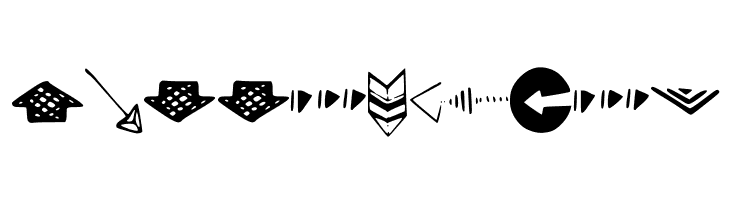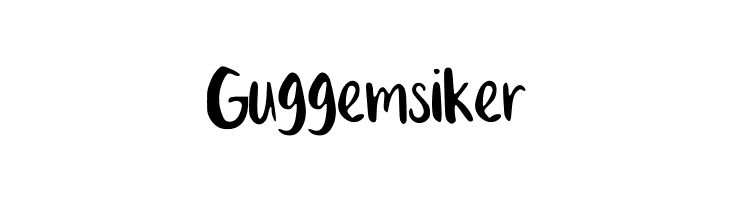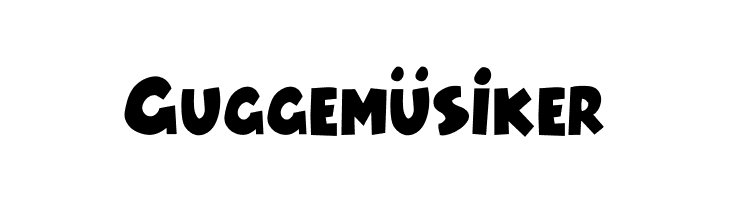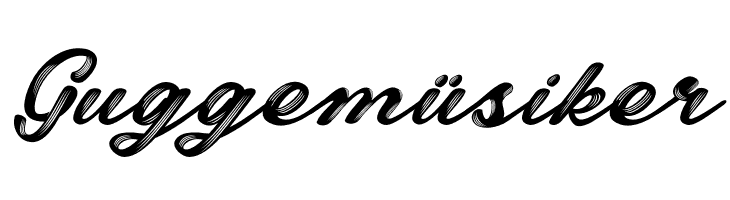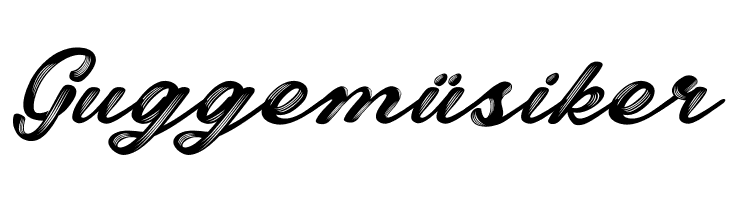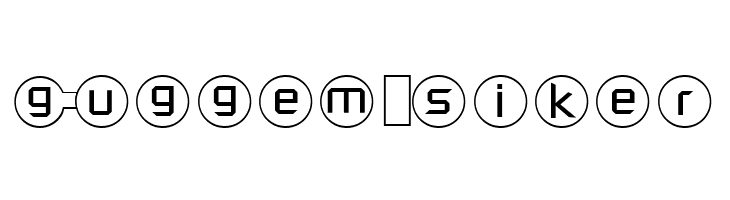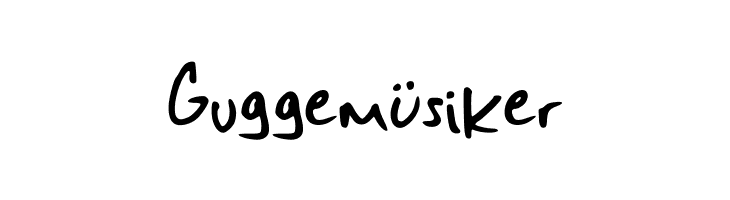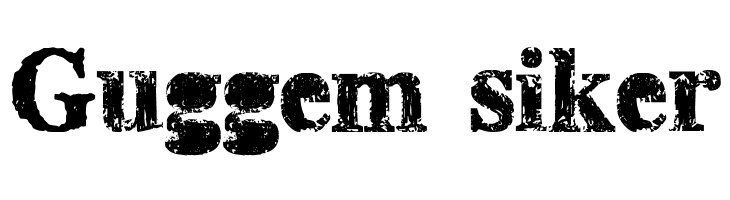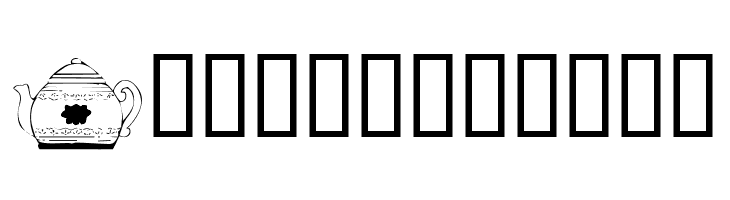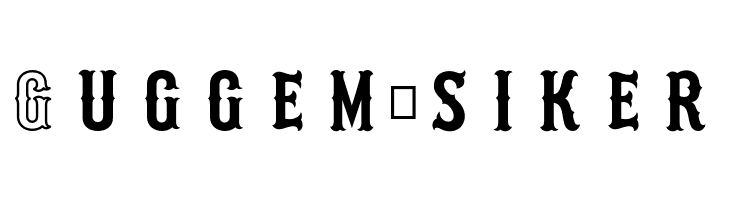
A playful handwritten font with smooth curves and a casual style.
A tall, narrow, hand-drawn font with a whimsical and playful style.
A bold, brush-style font with an energetic and artistic flair.
Hand-drawn decorative font made of assorted arrow illustrations.
Hand-drawn educational and academic-themed icon set.
A diverse set of decorative symbols and dingbats.
A playful, hand-drawn font with bold, dynamic strokes and a lively character.
A bold, expressive handwritten font with dynamic strokes and playful character.
A bold, playful font with thick, rounded strokes and a hand-drawn feel.
A playful, handwritten font with bold, rounded characters.
A bold, cursive script font with elegant, flowing letterforms.
A bold, flowing script font with elegant, cursive letterforms.
A sketch-like, artistic font with irregular strokes and a dynamic, hand-drawn feel.
A tall, narrow, and modern font with minimal stroke contrast.
A playful, rounded handwritten font with a casual and friendly appearance.
A playful, geometric font with characters enclosed in circles, connected like molecules.